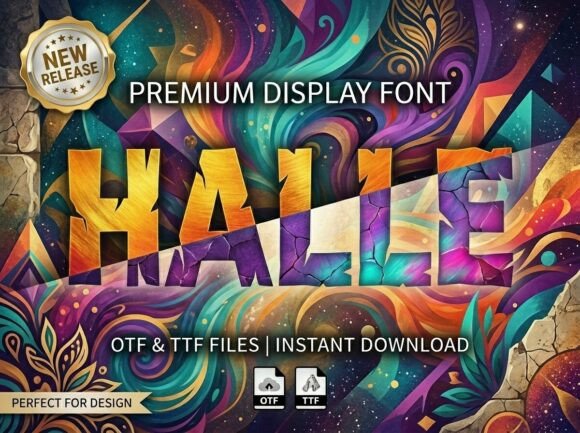
Halle: A Rugged Display Typeface for Bold Brand Identity
It started with a blank brand board and a client who said, “We want to feel handmade—but not soft. Gritty—but not aggressive.” They ran a small ceramic studio in Portland: wheel-thrown mugs, raw-glazed tiles, and workshop classes taught in a converted garage. No corporate gloss, no minimalist sterility—just honest texture, tactile weight, and quiet confidence. That’s when I opened my font library and typed “Halle” into the search bar.
Halle isn’t subtle. It’s a display typeface built for impact—not decoration. When I dropped it into the logo mockup, the uppercase letters landed like hand-chiseled stone: heavy, uneven, jagged at the edges, with a ruggedly textured block structure that refuses to sit neatly on the baseline. There’s no optical correction here—no smoothing, no uniformity. Just deliberate, almost physical irregularity. That’s its personality: grounded, expressive, unapologetically human-made.
I tested Halle first as a logo lockup—stacked over a simple line drawing of a kiln. The contrast worked instantly: the clean illustration gave breathing room; Halle brought gravity. It didn’t shout, but it held space. On a matte black business card, the ink sat thick and slightly raised in print preview—exactly how I imagined it would look letterpress-style. That’s one of Halle’s quiet strengths: it translates beautifully to tactile formats. Labels, embossed packaging, stamped tags—it doesn’t flatten out. It keeps its character.
But here’s what I learned fast: Halle is not a workhorse. It’s a spotlight. I tried using it for body copy on their website’s “About” page—and immediately scrapped it. Even at 24px, the uneven strokes and tight spacing made scanning difficult. That’s fine. That’s expected. Halle is a display font, full stop. Its job is to anchor moments: a shop sign above the doorway, the “New Workshop” headline on an Instagram post, the bold title on a seasonal product label (“Stoneware Collection • Fall 2024”). In those contexts, it doesn’t compete—it commands.
For hierarchy, I kept things lean. Halle handled all primary headlines and logo treatments. Then I paired it with a warm, open sans serif—something airy and legible at small sizes, like Poppins Light or Manrope Regular—for supporting text, web navigation, and email footers. The contrast was intentional: Halle’s raw texture against clean, modern neutrality. No script fonts needed—its inherent handcrafted energy made a handwritten pairing feel redundant. A serif? Only if it had strong, organic contrast (think Merriweather Bold for editorial quotes), but even then, I reserved it for very specific printed pieces—like a limited-run workshop booklet where texture-on-texture added depth.
What surprised me most was how well Halle held up across scales. At 80pt on a 24x36” poster, the jaggies read as expressive rhythm. At 18pt on a sticker label, they became subtle texture—still recognizable, still distinctive, but not overwhelming. And on screen? With proper line-height and letter-spacing adjustments in CSS, it performed cleanly in hero headers—even with modest web font loading. (Pro tip: always test Halle’s web version with fallbacks. Its .woff2 file is lightweight, but browser rendering varies—especially on older Android devices.)
One real-world hiccup? Printing. Not with Halle itself—but with assumptions. When I sent the first round of packaging proofs to the printer, they flagged the tight inner counters on letters like ‘O’ and ‘B’, worried about ink fill-in at small sizes. We adjusted: bumped the minimum recommended size on labels to 14pt, used spot varnish to lift the texture instead of relying on CMYK buildup, and ran a physical press test before final run. Small fixes—but worth noting. Halle rewards intentionality. You can’t just drop it in and walk away.
Social media was where Halle really sang. On Instagram, a single word—“FIRE”, “GLAZE”, “WHEEL”—set in Halle over a photo of wet clay or molten glaze created instant visual cohesion. No filters needed. The font’s inherent tactility echoed the content. For Stories, I used it sparingly: only on cover slides or key announcement frames. Overuse diluted its impact—like playing the same drum hit too many times. Less was more. Always.
Does it work for every brand? No. If your client sells luxury skincare with pearlescent packaging and whisper-quiet messaging, Halle will clash. But if your project lives in the realm of craft, maker culture, indie publishing, or locally rooted food and beverage—where authenticity, material honesty, and human imperfection are assets, not flaws—then Halle isn’t just appropriate. It’s resonant.